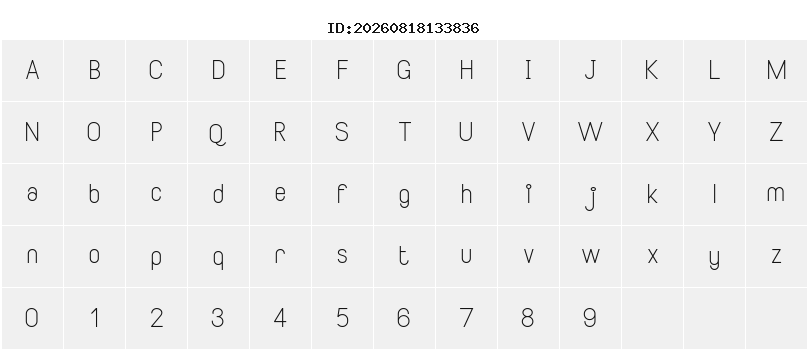
Smiley Sans Preview
• Font Name: Smiley Sans
• Full Font Name: Smiley Sans Regular
About Smiley Sans.ttf
Smiley Sans.ttf is a modern, elegant sans-serif font designed for ultimate readability and visual harmony. Perfect for branding, headlines, web design, and print materials.